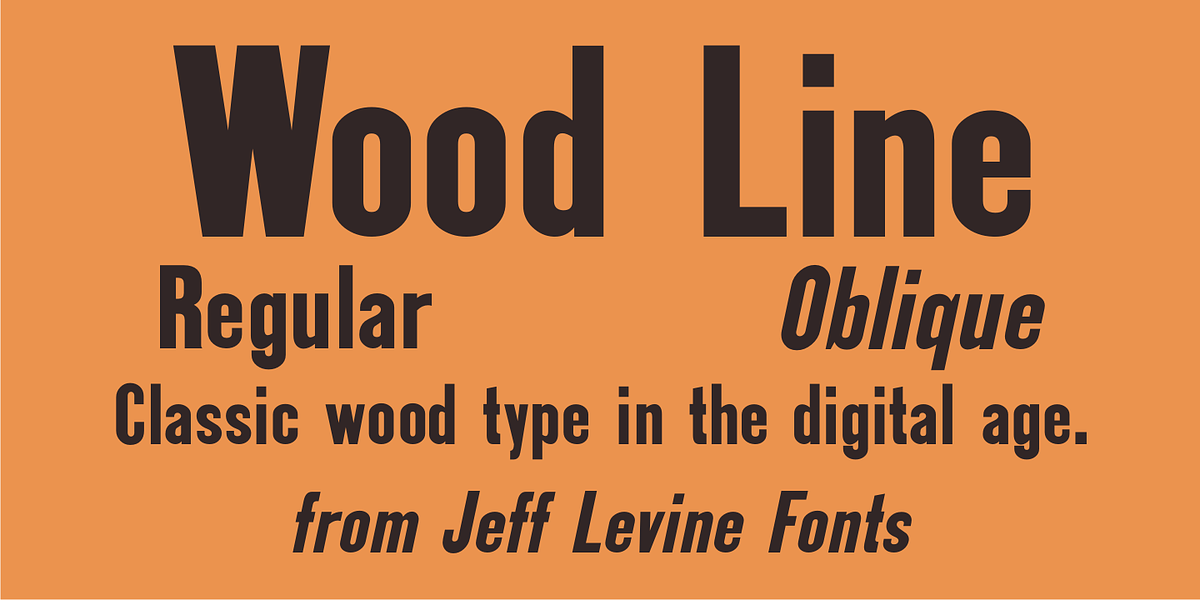
Wood Line JNL
Wood Line JNL is based on a printed example of a vintage handmade wood type. This sans serif digital font is available in both regular and oblique versions.